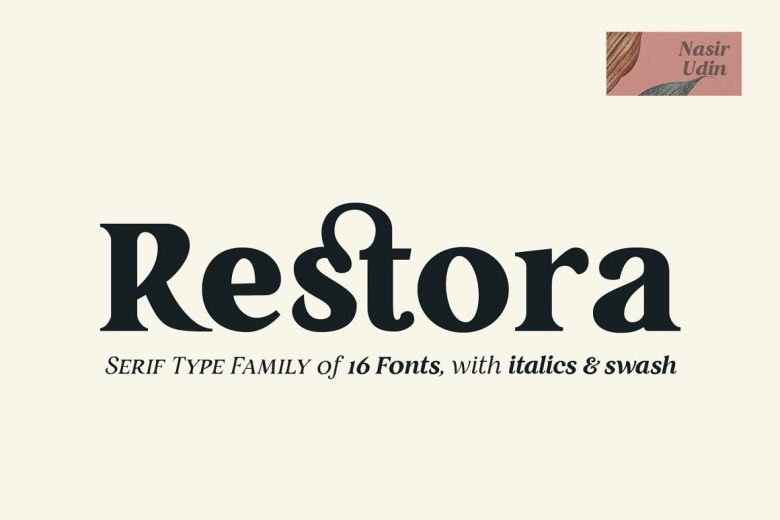
Restora Font Family
Restora Font
Continue to be an elegant high contrast serif font family designed by Nasir Udin. This is a luxury serif with unique alternates and swashes! This typeface has classic style yet still looks great for modern design. Introducing Restora Serif Font Family. It’s a mix of old-style roman serif styles. The combination of beautiful letterforms and old style serif makes Restora a versatile type family that can be used in many different themes of design projects.
It comes in eight weights from thin to black with matching italics. Its mixture of weights provide a wide range of styles that will help you find the best vibe for your projects, from body text to big headlines, from classic style to modern and bold style.
Restora Serif Font Family